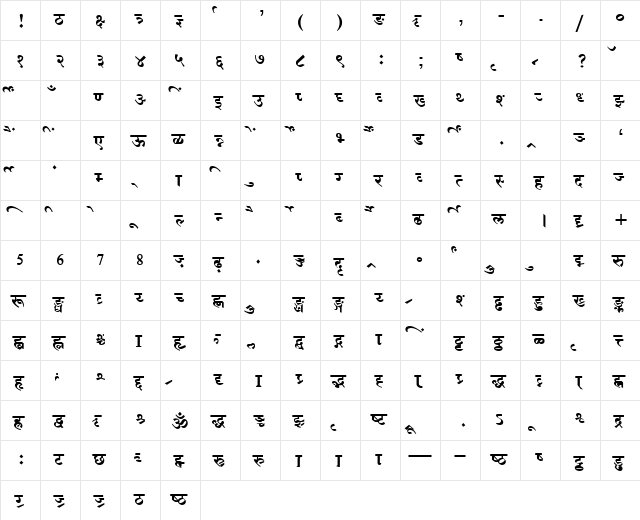
AkrutiDevMouj Normal
Design Context for AkrutiDevMouj Typeface
AkrutiDevMouj takes a measured approach to typography — its balanced proportions and neutral character make it a reliable workhorse for both digital and print work.